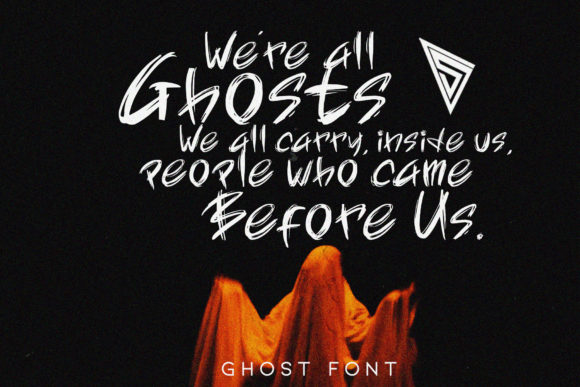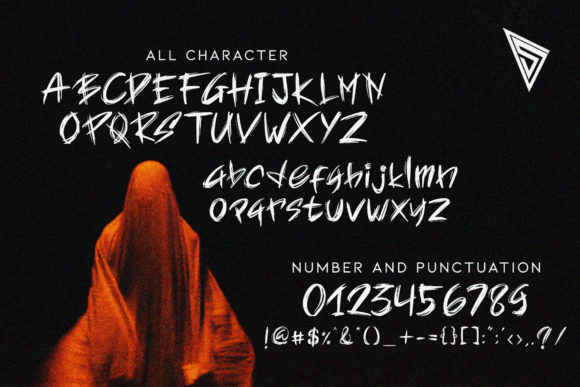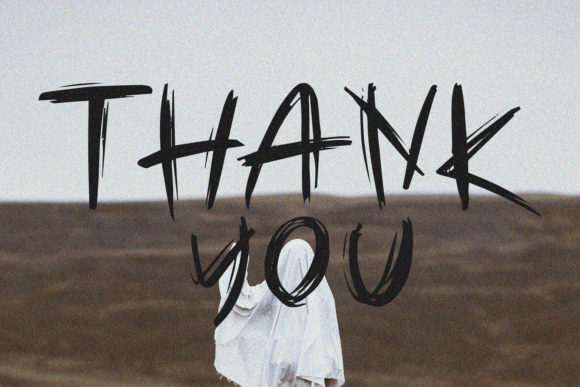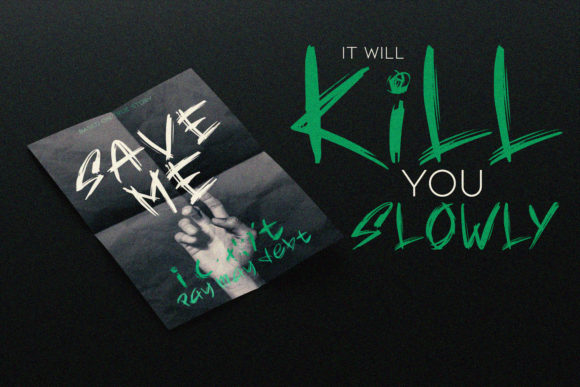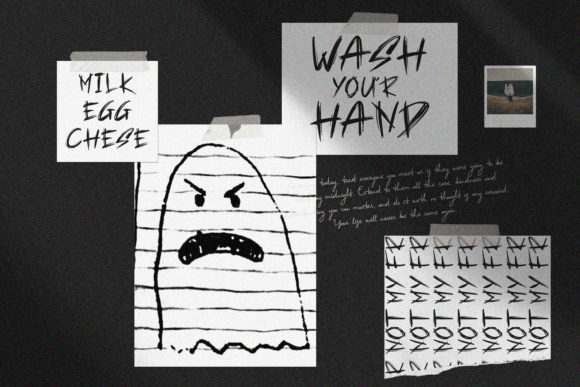
Unleash the Spook: Exploring the Eerie Charm of Ghost Font
In the realm of typography, few fonts capture the essence of the eerie and the unknown as effectively as the Ghost Font. Inspired by the ethereal apparition known as a ghost, this unique display font is designed to evoke a sense of mystery and intrigue. With its spooky appearance and robust characters, Ghost Font is an ideal choice for any project that demands a touch of the macabre, particularly for Halloween and horror-themed designs.
The Inspiration Behind Ghost Font
The Ghost Font draws its inspiration from the classic depictions of ghosts in folklore and popular culture. Its design is characterized by a translucent, eerie glow that seems to float across the page. Each character is crafted to convey a sense of otherworldliness, with subtle variations in line width and a slightly distressed texture that adds to its haunted charm.
Key Features of Ghost Font
- Unique Display Font: Ghost Font is specifically designed as a display font, making it perfect for headlines, titles, and short phrases that need to stand out.
- Spooky Appearance: Its ghostly appearance is sure to capture attention and add a festive touch to any Halloween or horror project.
- Strong Characters: Despite its ethereal theme, Ghost Font features strong, legible characters that ensure your message is clear and impactful.
- Versatility: From posters and postcards to logos and more, Ghost Font can be used in a wide range of design projects.
Using Ghost Font in Design Projects
Ghost Font’s versatility makes it an excellent addition to various design projects, especially those with a Halloween or horror theme. Here are some ideas on how to incorporate Ghost Font into your designs:
Halloween and Horror Projects
Ghost Font is tailor-made for Halloween and horror-themed projects. Use it to create eye-catching posters for haunted house events, design eerie invitations for Halloween parties, or craft compelling logos for horror movies or haunted attractions.
Posters and Postcards
Add a spooky touch to your posters and postcards with Ghost Font. Whether you’re promoting a Halloween event, a horror movie, or simply want to create a unique piece of art, Ghost Font can help you achieve a captivating design.
Logos and Branding
Ghost Font can also be used to create memorable logos and branding elements for businesses operating in the horror or entertainment industries. Its unique appearance can help your brand stand out and leave a lasting impression on your audience.
Tips for Working with Ghost Font
To make the most of Ghost Font, consider the following tips:
Combine with Complementary Fonts
Pair Ghost Font with simpler, more readable fonts for body text to create visual contrast and enhance readability.
Experiment with Colors
Take advantage of Ghost Font’s translucent appearance by experimenting with different colors and overlays to achieve the desired level of eeriness.
Use in High-Impact Areas
Reserve Ghost Font for headlines, titles, and key messages to maximize its impact and draw attention to important information.
Ghost Font is a unique and captivating display font that can add a touch of the macabre to any design project. Its spooky appearance, strong characters, and versatility make it an ideal choice for Halloween and horror-themed designs. By incorporating Ghost Font into your projects, you can create eye-catching and memorable designs that are sure to leave a lasting impression on your audience.